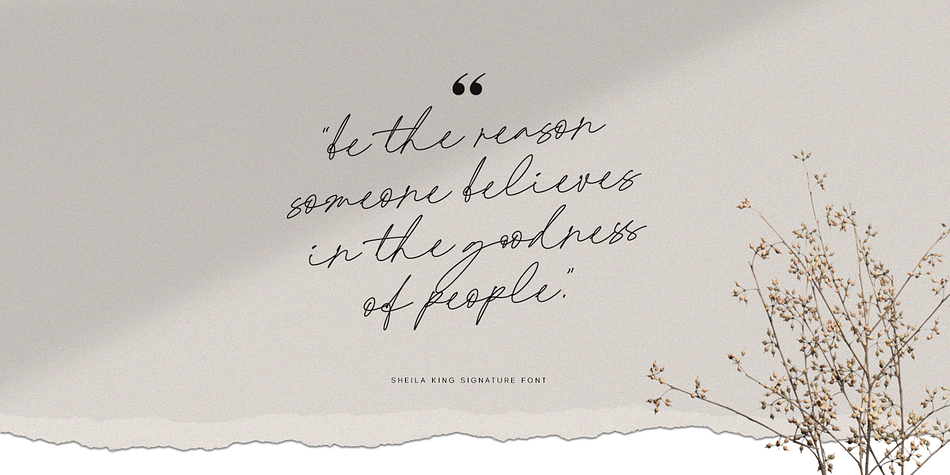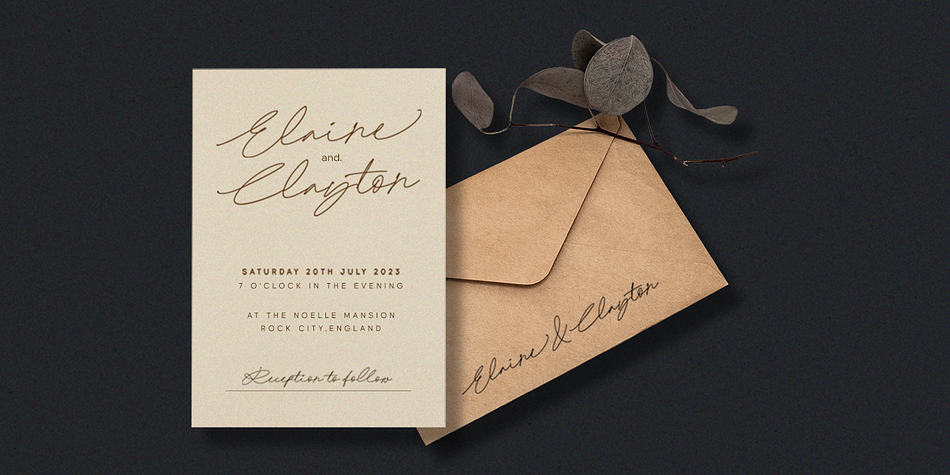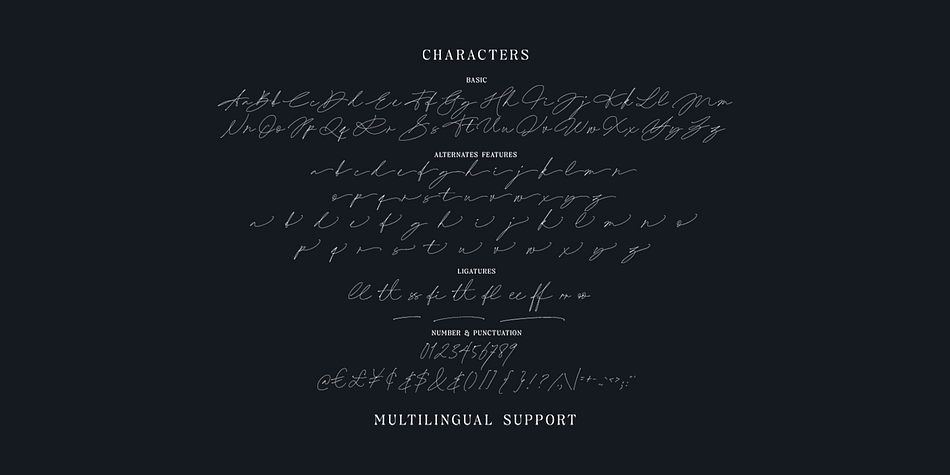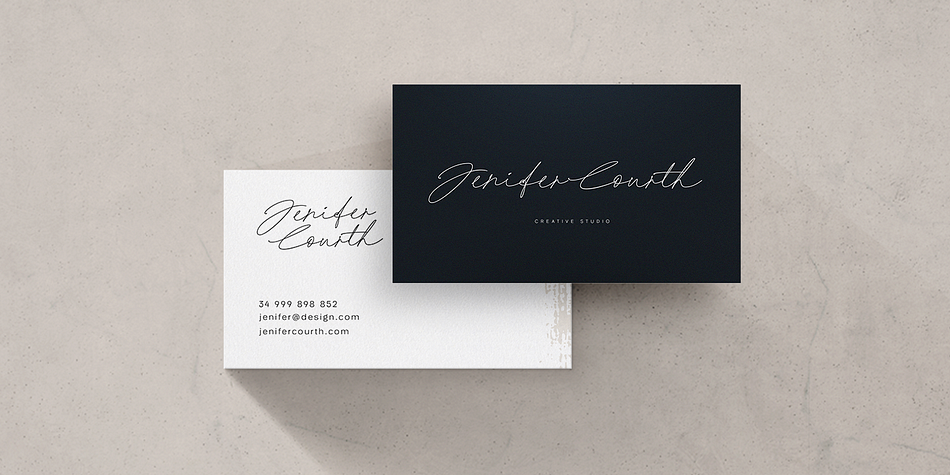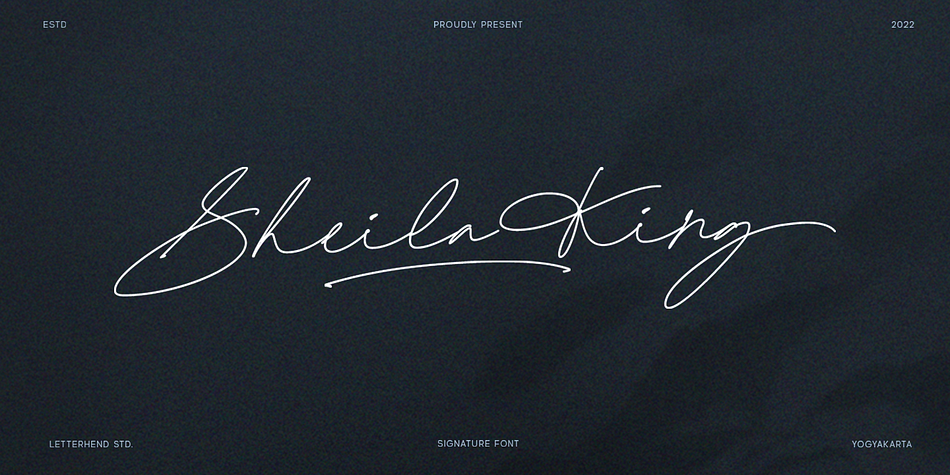
Sheila King
Designed by Hendry Juanda, Sheila King is a modern calligraphy and script font family published by Letterhend Studio.
Shelia King is a beautiful signature script based on manual hand writing. The stylistic alternate, ligatures and the tick and thin stroke make this font looks a real hand writing instead of typing a font. This type of font perfectly made to be applied especially in logo, and the other various formal forms such as invitations, labels, logos, magazines, books, greeting / wedding cards, packaging, fashion, make up, stationery, novels, labels or any type of advertising purpose.
- alternates and ligatures